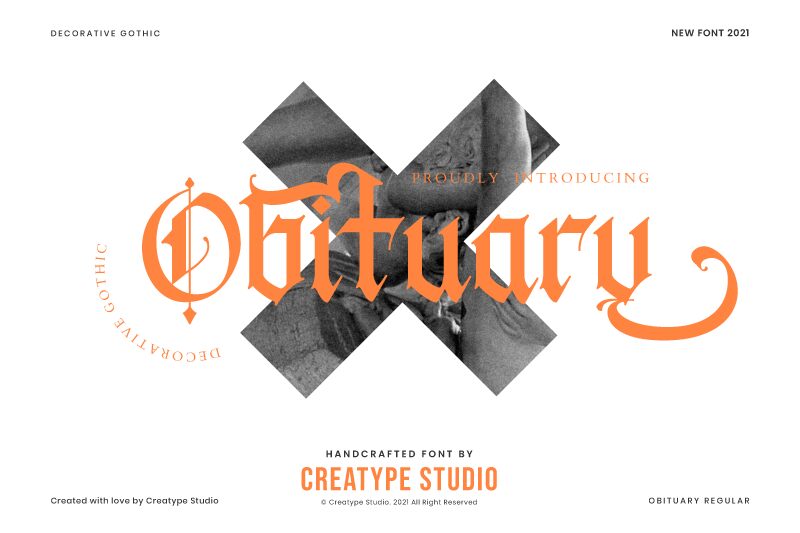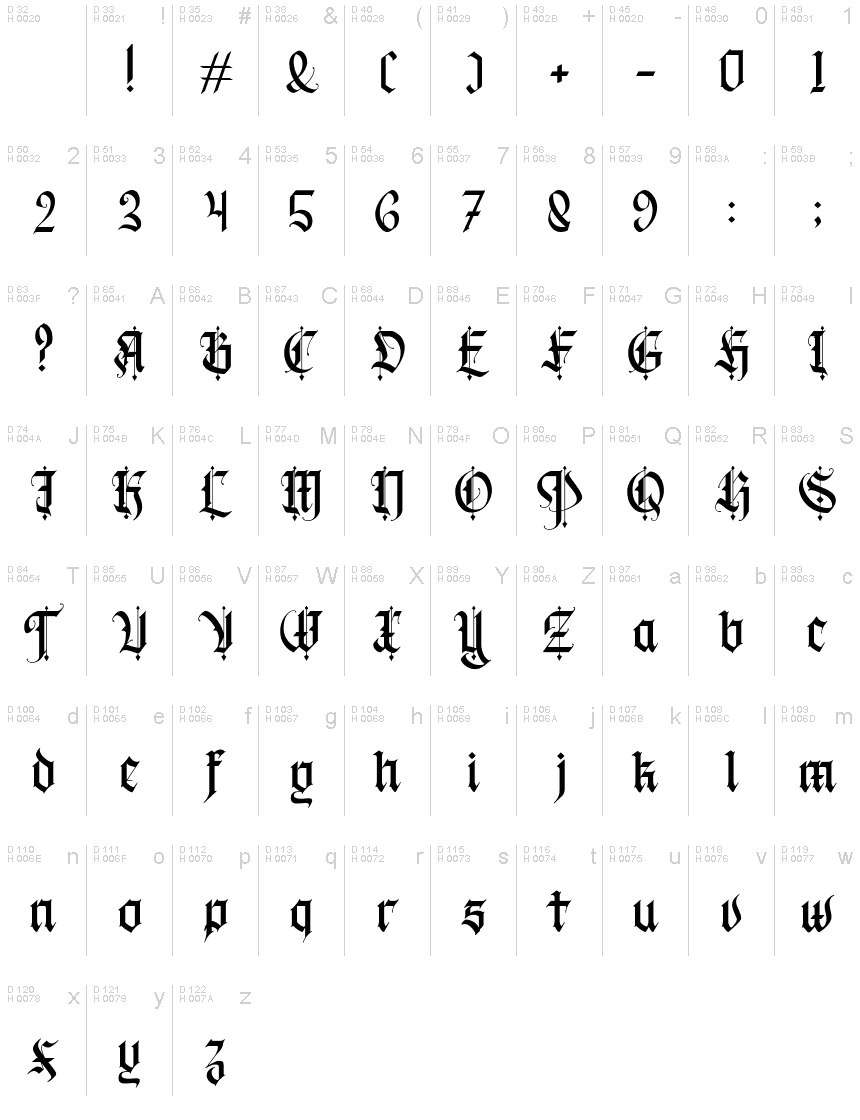
Obituary, a gothic decorative font from Creatype Studio, adds an air of mystery and macabre to any project. With its semi-light weight, it's perfect for creating a haunting mood without overwhelming the eye. Use Obituary in branding for horror movies or Halloween events, as well as in book covers or posters for horror novels. Its intricate details and unique design also make it ideal for creating invitations to gothic-themed weddings or parties. Embrace the darkness with Obituary and elevate your projects to new heights of eerie elegance.